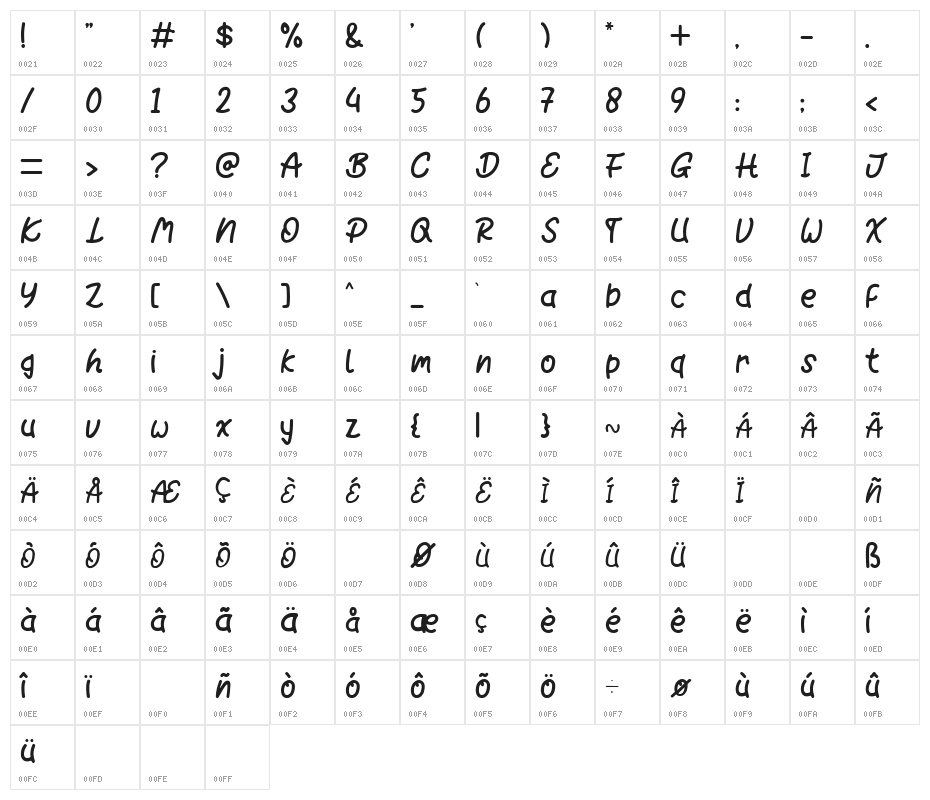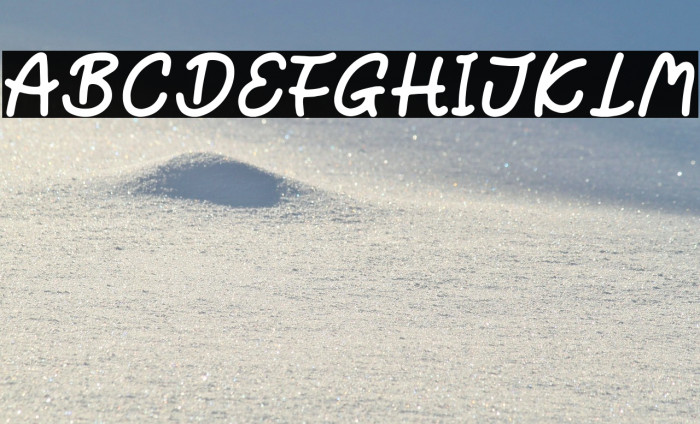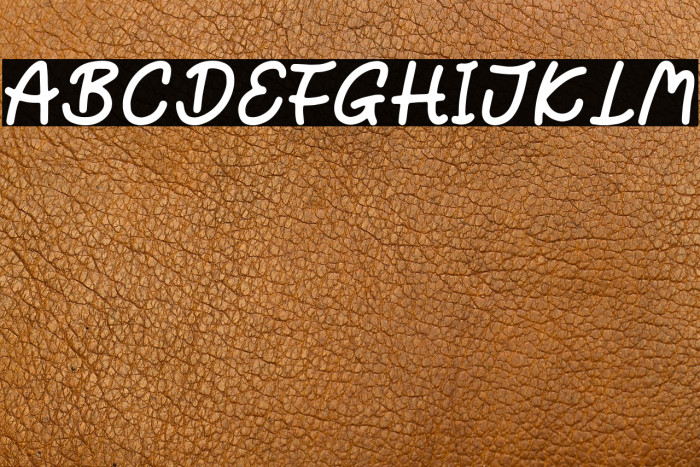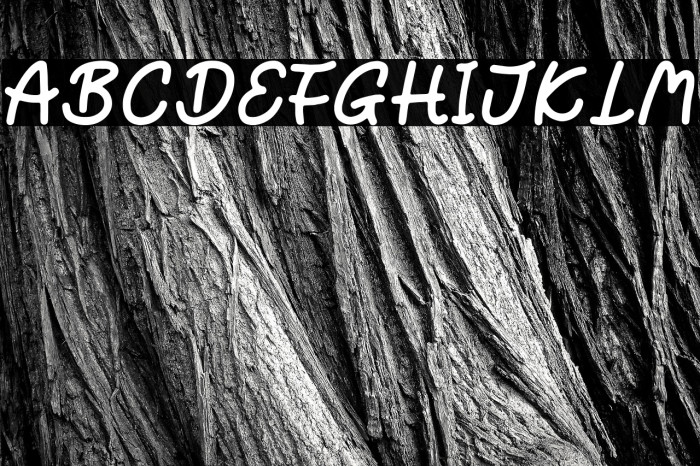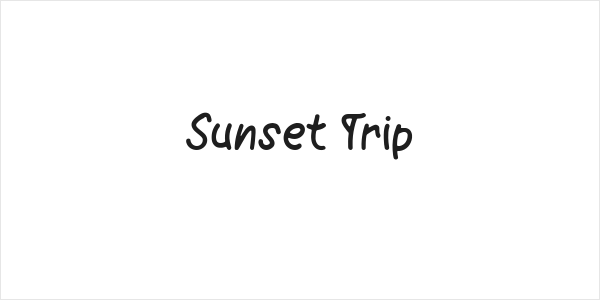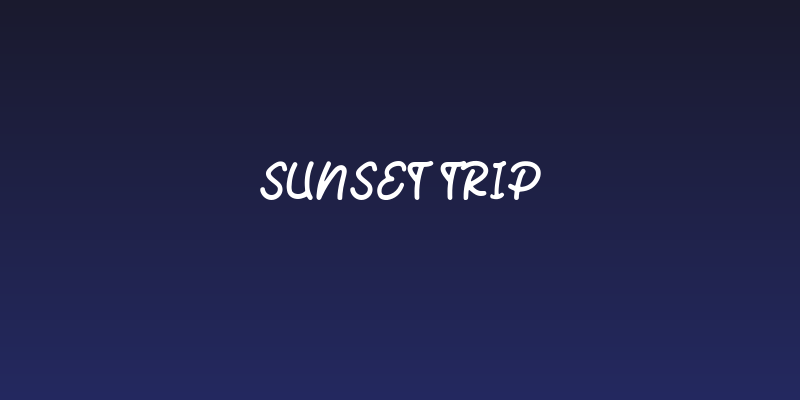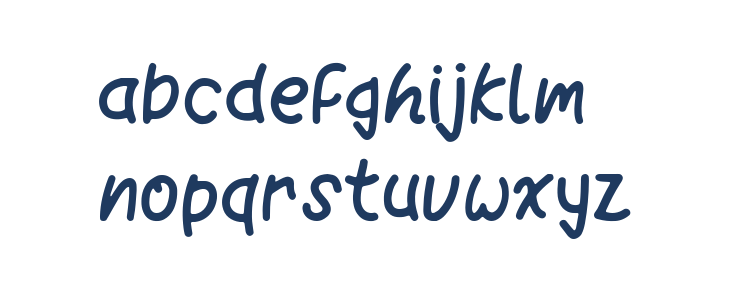
Sunset Trip Font
Sunset Trip Description
This font features a playful and casual handwritten style, characterized by its smooth, rounded strokes and slightly irregular letterforms. The uppercase and lowercase letters maintain a consistent flow, giving it a friendly and approachable appearance. The numbers and special characters follow the same aesthetic, ensuring uniformity across all glyphs. Its informal nature makes it suitable for projects that require a personal touch or a relaxed vibe. The font's design is versatile enough to be used in various creative contexts, from greeting cards to social media graphics.
| Proposed Projects | Greeting cards, social media graphics, children's books, casual invitations. |